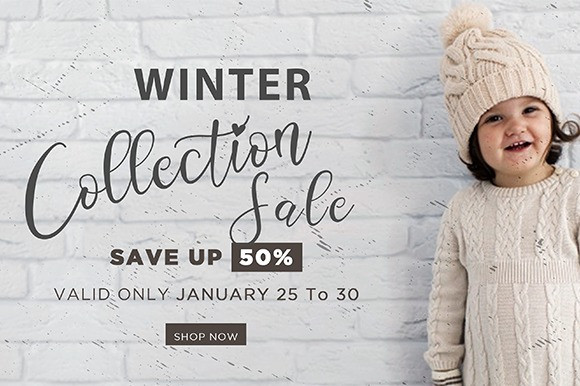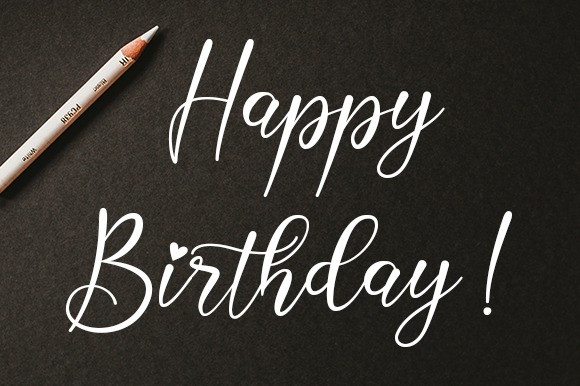
Bethiany Font
Bethiany Calligraphy Font is an elegant and a natural handwritten font.
It’s the perfect choice for branding projects, logos, wedding designs, social media posts, advertisements, product packaging, product designs, label, photography, watermark, invitation, stationery and any projects that need a personal touch.